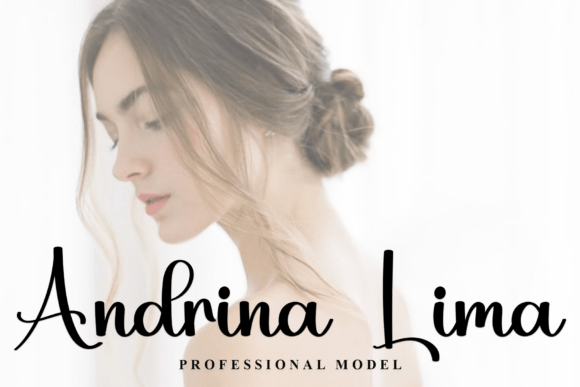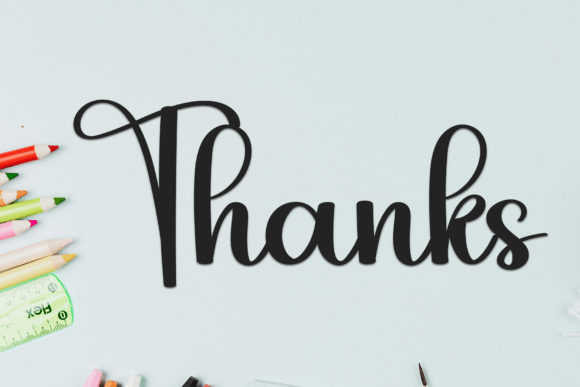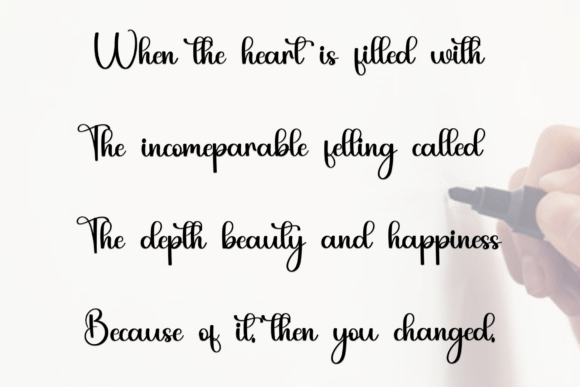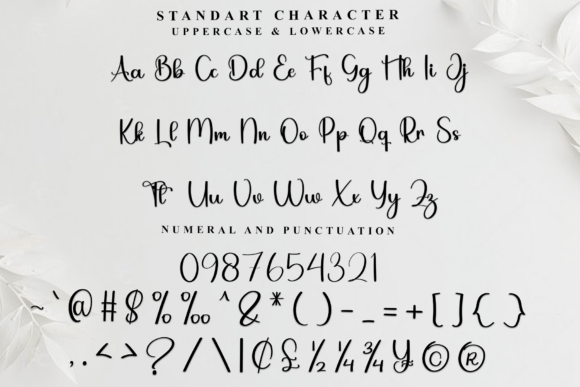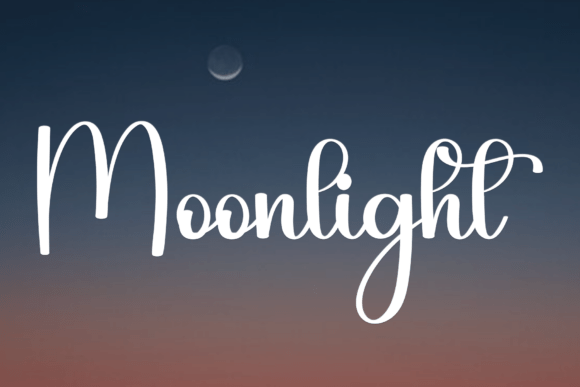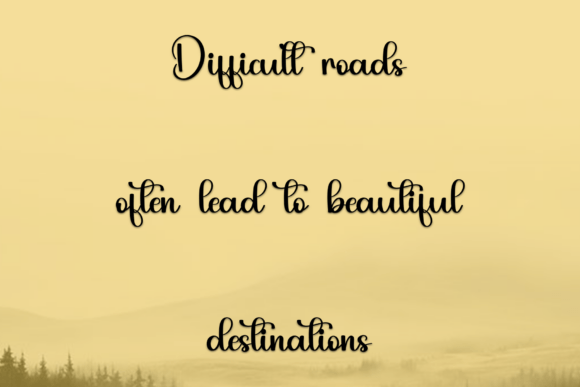
Introducing Economy Font: The Perfect Choice for Designers and Crafters
In the world of typography, a font can make or break a design project. That’s why it’s essential to choose a font that not only looks great but also conveys the right message. Economy font is a beautiful and eye-catching font designed with a soft, unique touch that sets it apart from other fonts. Its distinctive strokes give it a special character, making it meaningful and versatile for future use.
What Makes Economy Font Special?
Economy font is a one-of-a-kind font that boasts a range of features that make it perfect for design projects, crafts, and other creative works. Here are some of its key characteristics:
- Unique and Soft Design: Economy font has a soft and unique design that gives it a special charm. Its gentle curves and lines make it perfect for designs that require a touch of elegance and sophistication.
- Distinctive Strokes: The font’s distinctive strokes give it a special character that sets it apart from other fonts. This makes it ideal for designs that require a bit of personality and flair.
- Versatile: Economy font is incredibly versatile, making it perfect for a wide range of design projects, from crafts to digital designs.
- Various Characters: The font comes with a range of characters, making it perfect for designs that require a bit of creativity and experimentation.
Why Choose Economy Font?
So, why should designers and crafters choose Economy font for their projects? Here are just a few reasons:
- Enhance Your Designs: Economy font can enhance your designs, making them more appealing to a wide range of audiences across different artistic and creative fields.
- Perfect for Creative Projects: The font is perfect for creative projects, such as crafts, digital designs, and more.
In conclusion, Economy font is a beautiful and eye-catching font that is perfect for designers and crafters. Its unique and soft design, distinctive strokes, and versatility make it a great choice for a wide range of design projects. With its compatibility with various applications and ease of use, Economy font is an excellent addition to any designer’s toolkit. So, why not give it a try and see how it can enhance your designs?